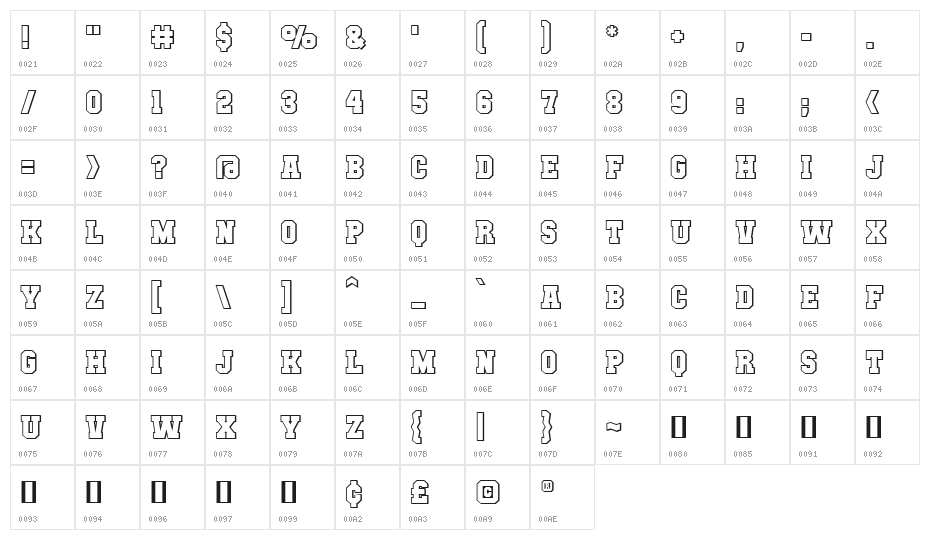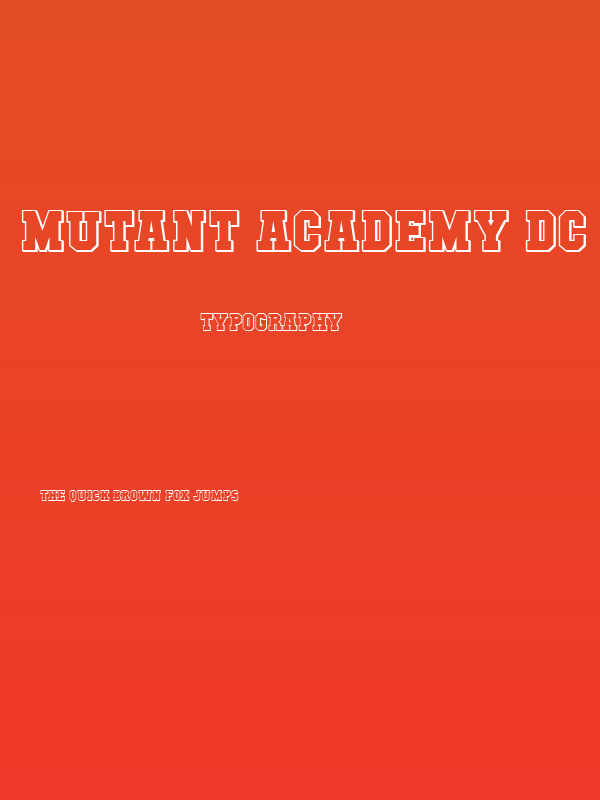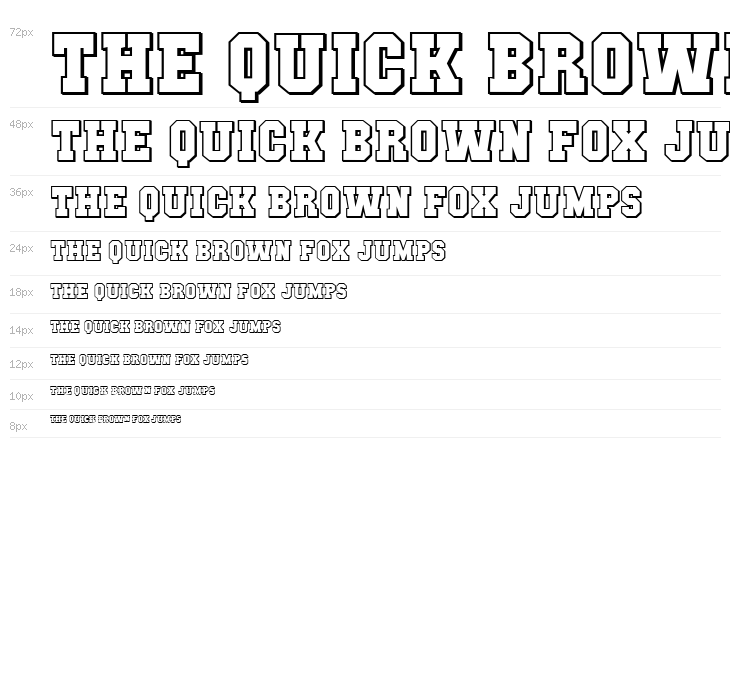
Mutant Academy DC BB Font
Mutant Academy DC BB Description
This font features a bold, blocky design with a strong presence, characterized by thick outlines and a solid, impactful appearance. The uppercase letters are uniform in height, with a consistent width that gives the font a balanced and structured look. The numbers and special characters maintain the same bold style, ensuring consistency across all elements. The font's design is reminiscent of collegiate or sports team lettering, making it ideal for projects that require a strong and authoritative visual impact.
| Use Case | Logos, Headlines |
| Proposed Projects | Ideal for sports team logos, event posters, and merchandise branding. |